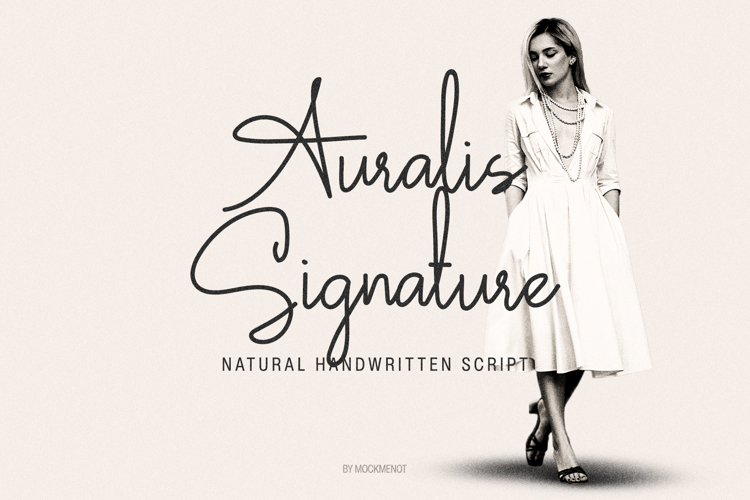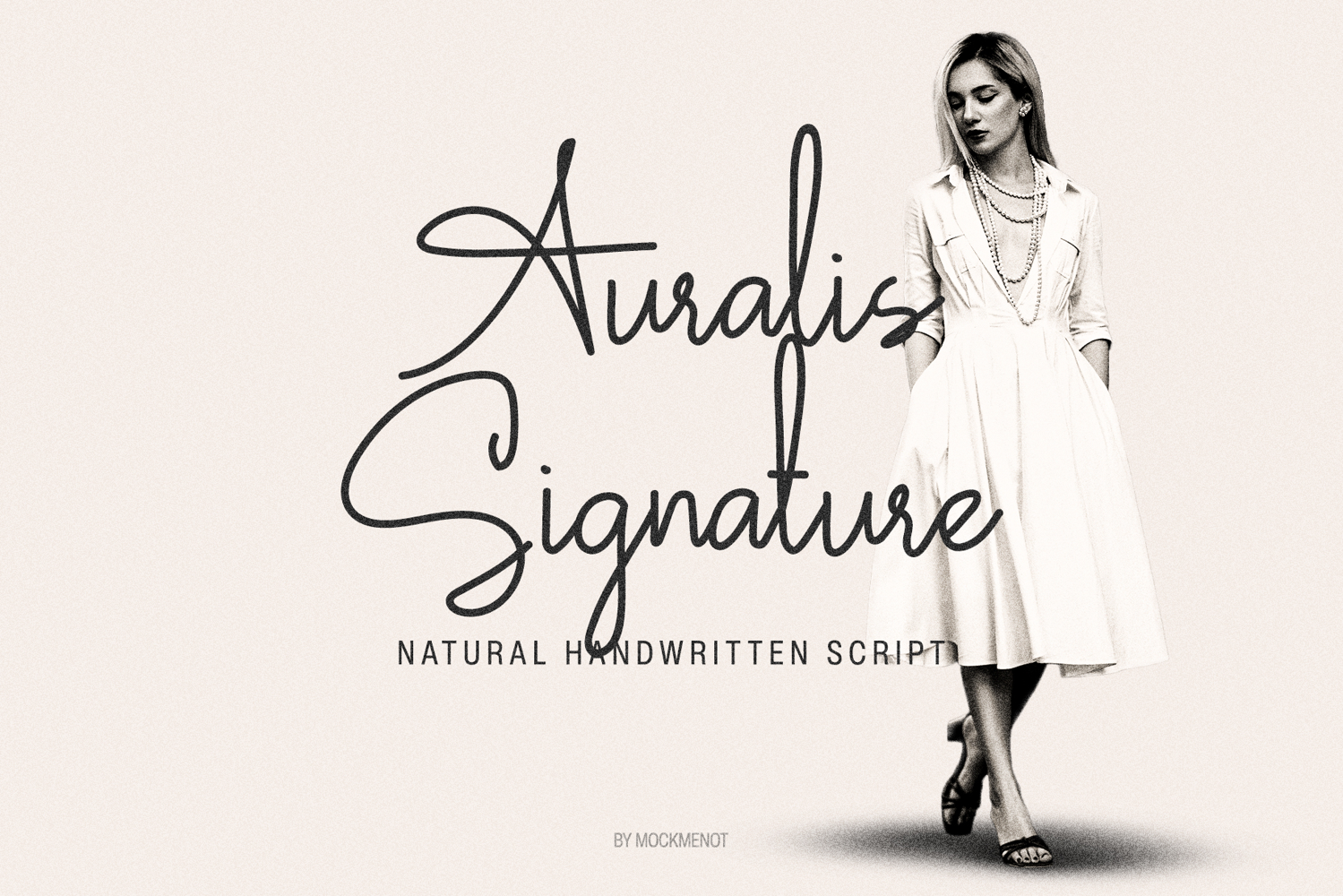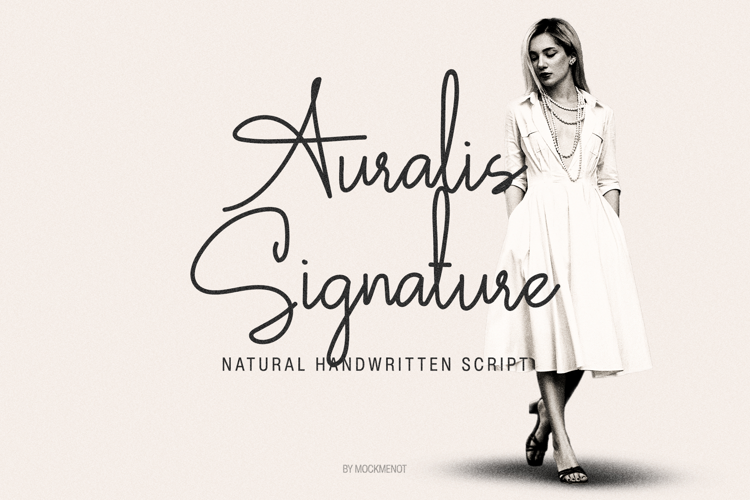
Auralis Signature is a modern handwritten script font with a natural flow and elegant character. Designed with a bold yet refined stroke, it brings a sophisticated and expressive touch to branding, wedding invitations, logos, and editorial designs.
Perfect for creating a stylish and timeless look, Auralis Signature blends modern elegance with signature feel, making it ideal for both creative and professional projects.